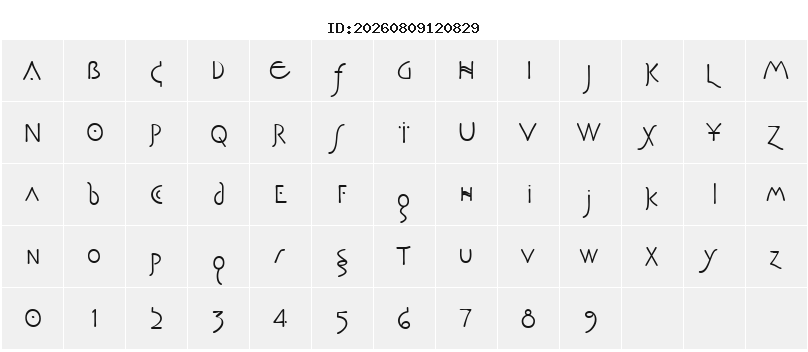
Pegasus Preview
• Font Name: Pegasus
• Full Font Name: Pegasus
About Pegasus.ttf
Pegasus.ttf is a modern, elegant sans-serif font designed for ultimate readability and visual harmony. Perfect for branding, headlines, web design, and print materials.